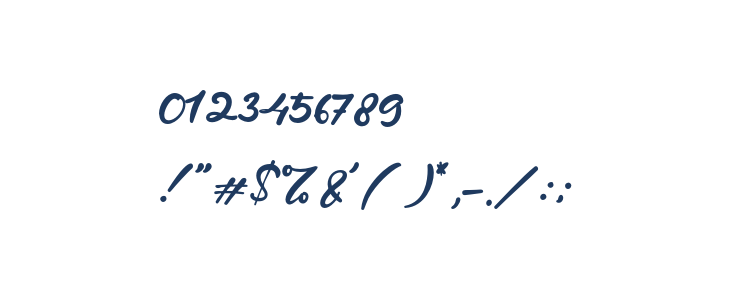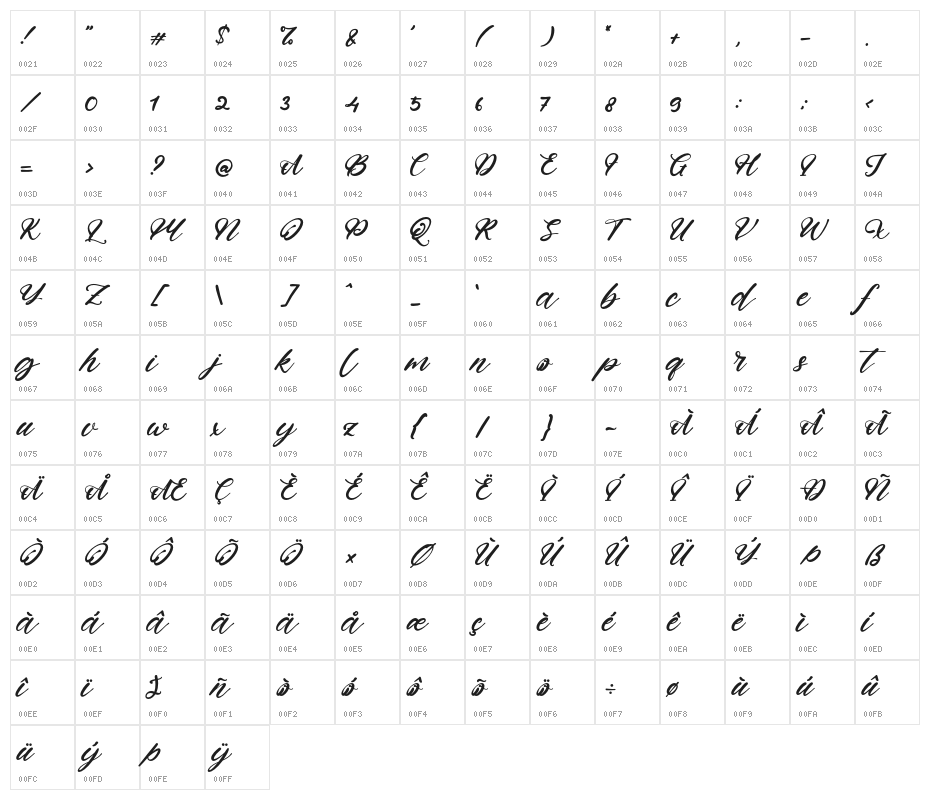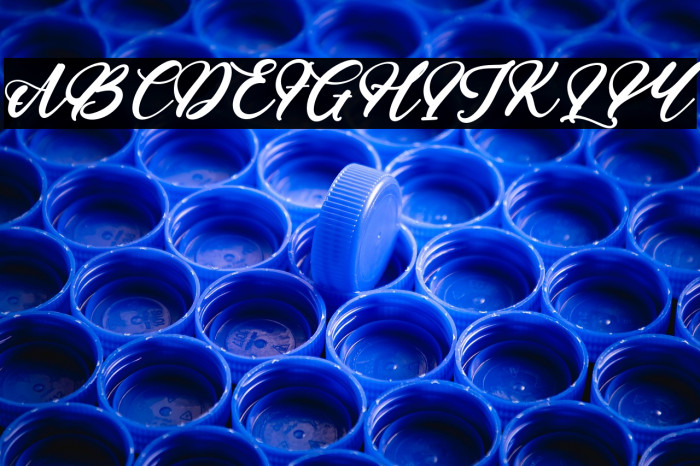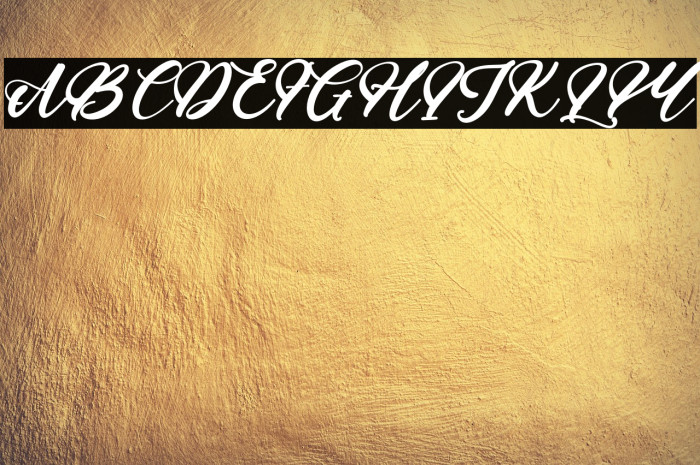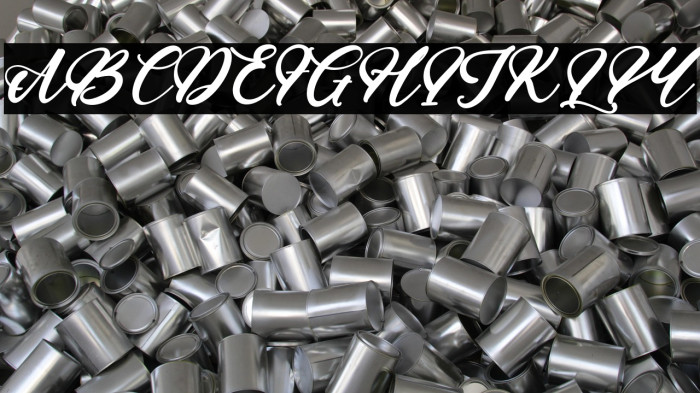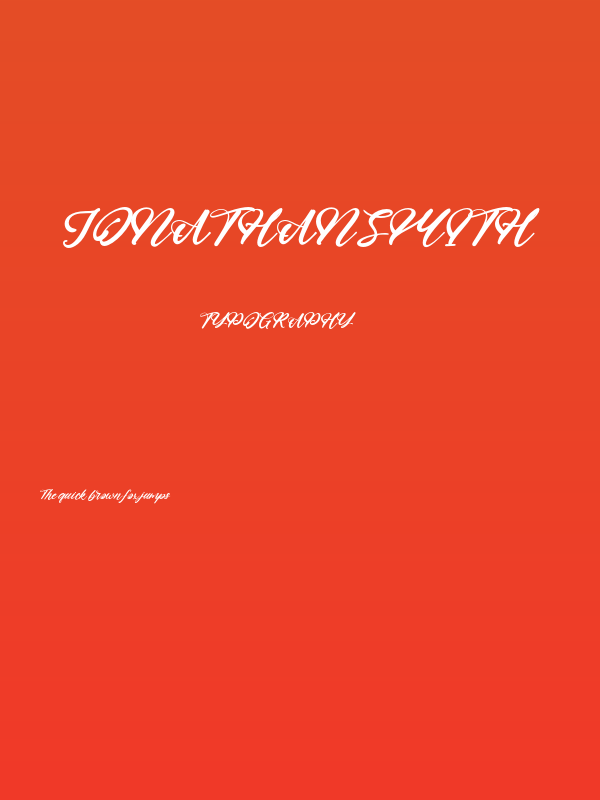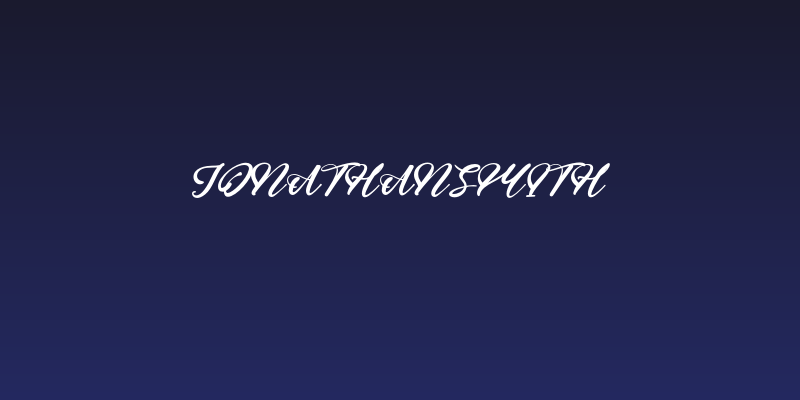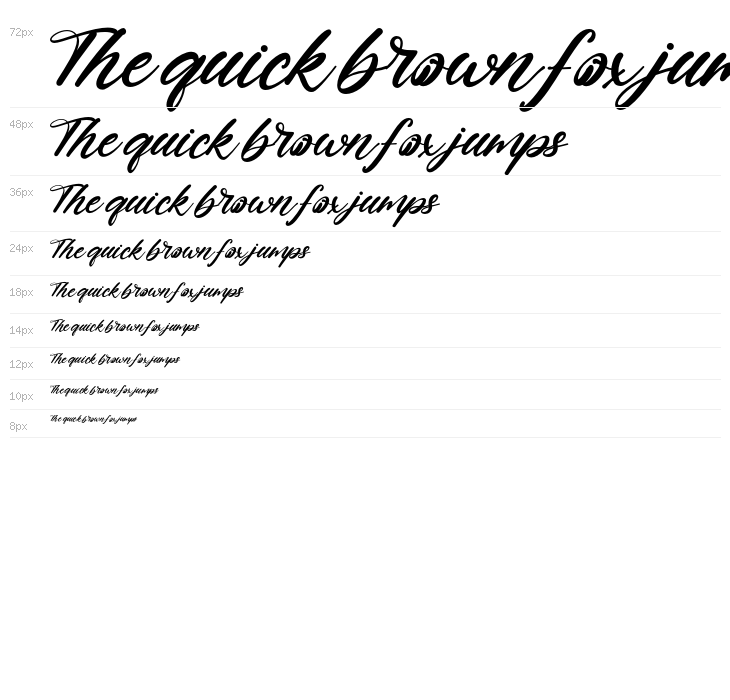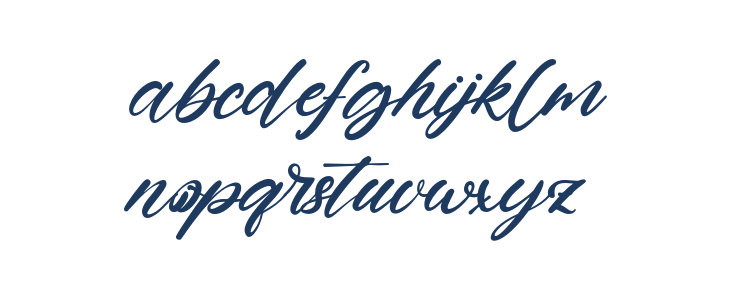
JonathanSmith Font
JonathanSmith Description
This font features a flowing, cursive style with elegant, sweeping strokes that give it a sophisticated and artistic appearance. The uppercase letters are bold and ornate, with intricate loops and flourishes that add a touch of drama. The lowercase letters maintain a consistent flow, with smooth connections between characters, enhancing readability while preserving the decorative nature. The numerals are distinct and maintain the same cursive style, ensuring consistency throughout. Special characters are also designed with the same attention to detail, making them blend seamlessly with the rest of the font. This font exudes a sense of elegance and creativity, making it ideal for projects that require a personal, handwritten touch.
| Use Case | Logos, Invitations, Decorative text |
| Proposed Projects | Ideal for wedding invitations, greeting cards, branding, and logo design. |